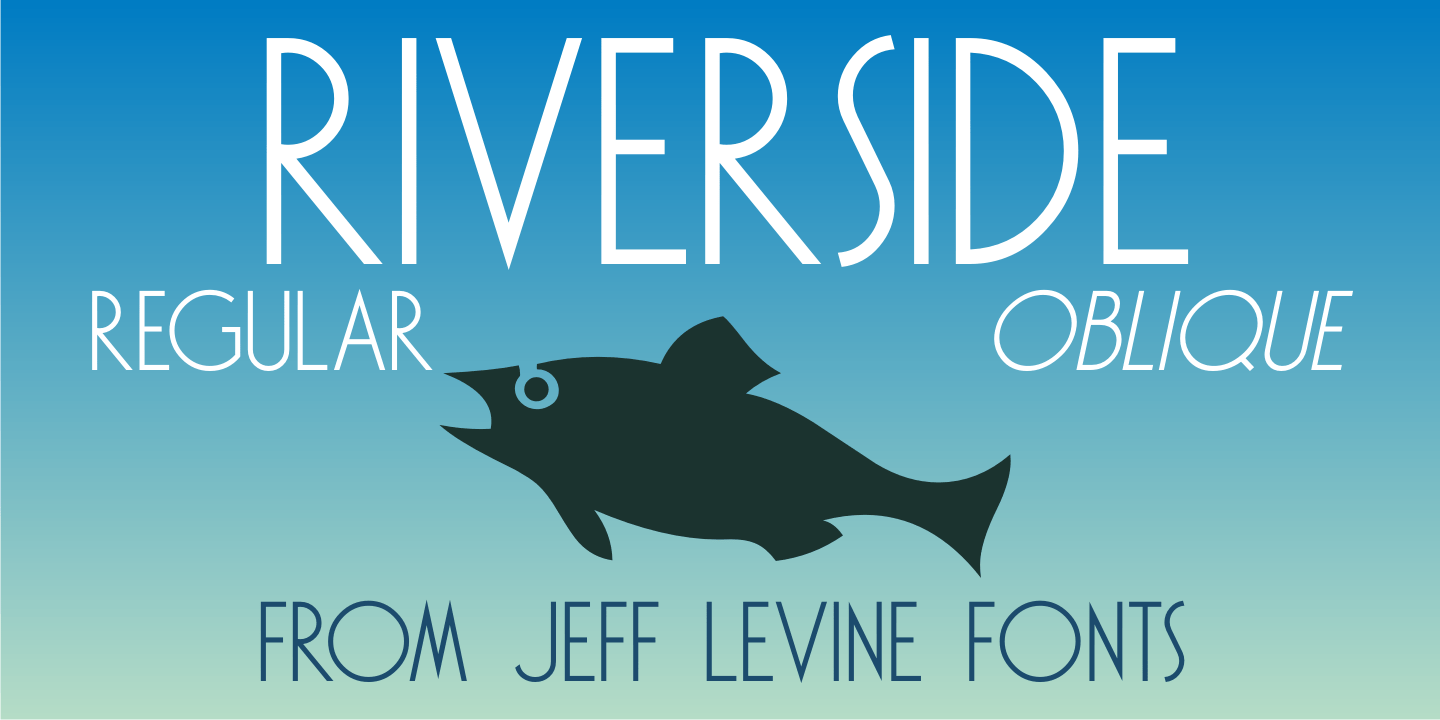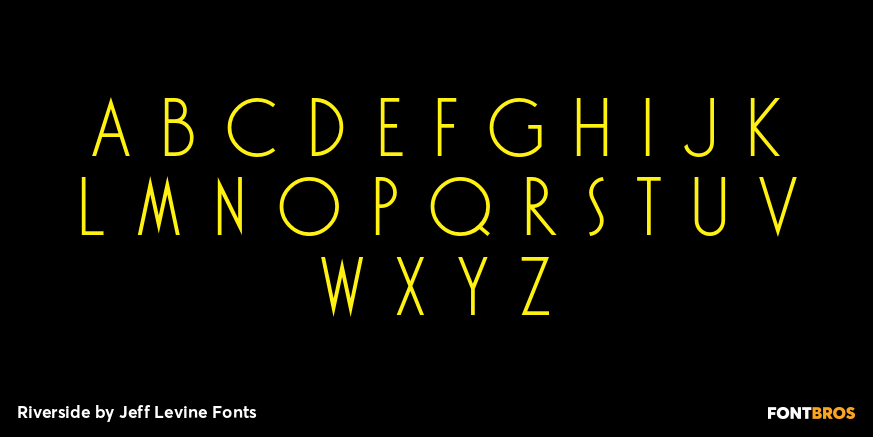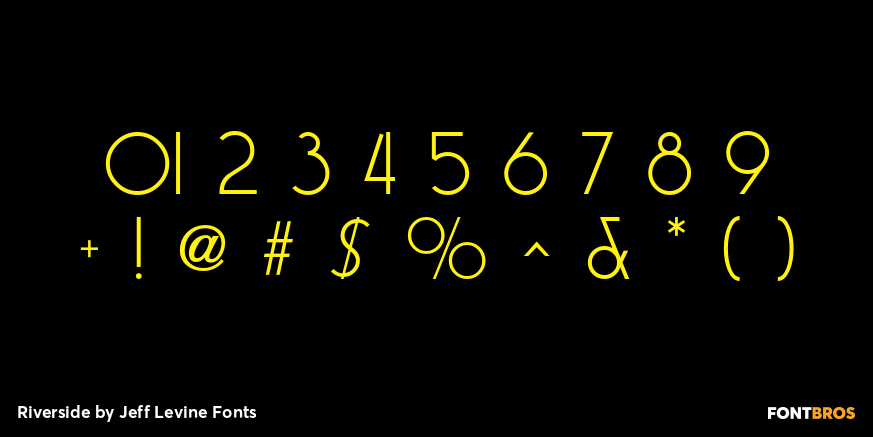
Riverside
The Art Deco design of Riverside JNL was based on the hand lettered title found on the 1932 sheet music for 'By the River Sainte Marie', and is available in both regular and oblique versions.